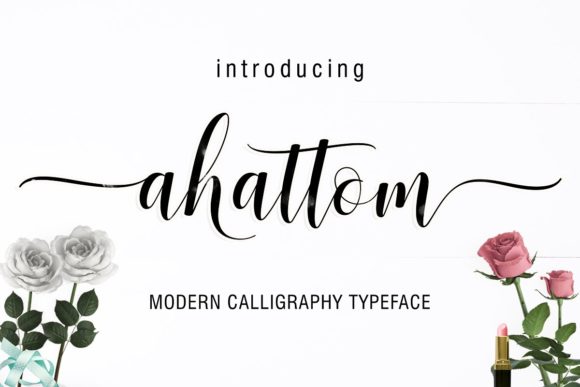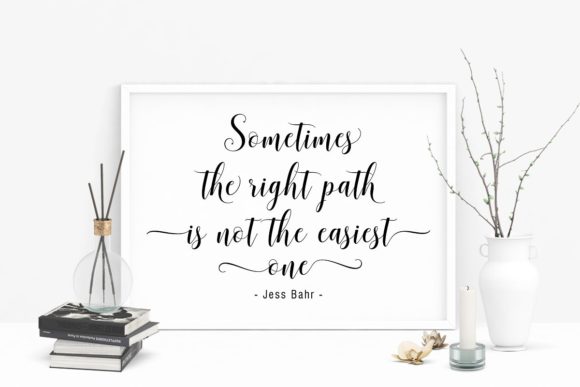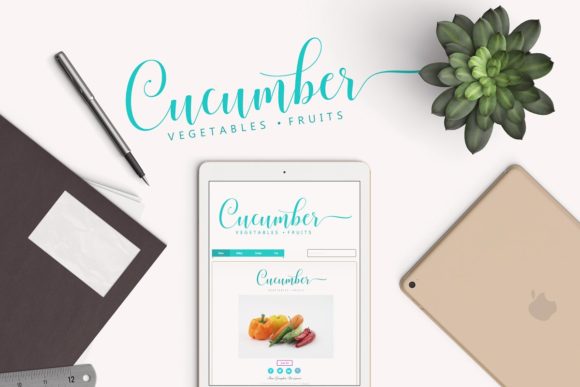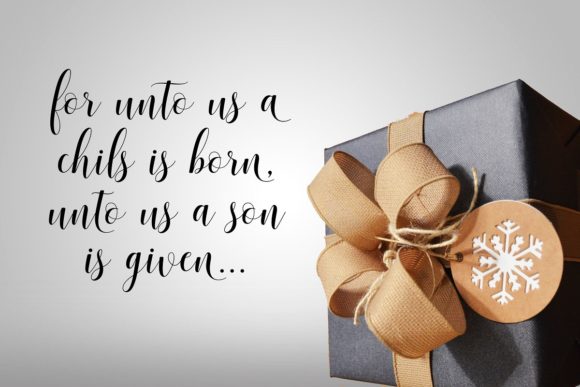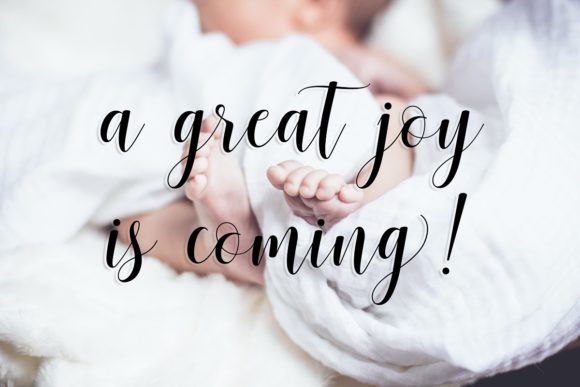
Ahattom Script Font
About Ahattom Script Font
Ahattom is modern script font where every single letter has been carefully crafted to make your text look beautiful.